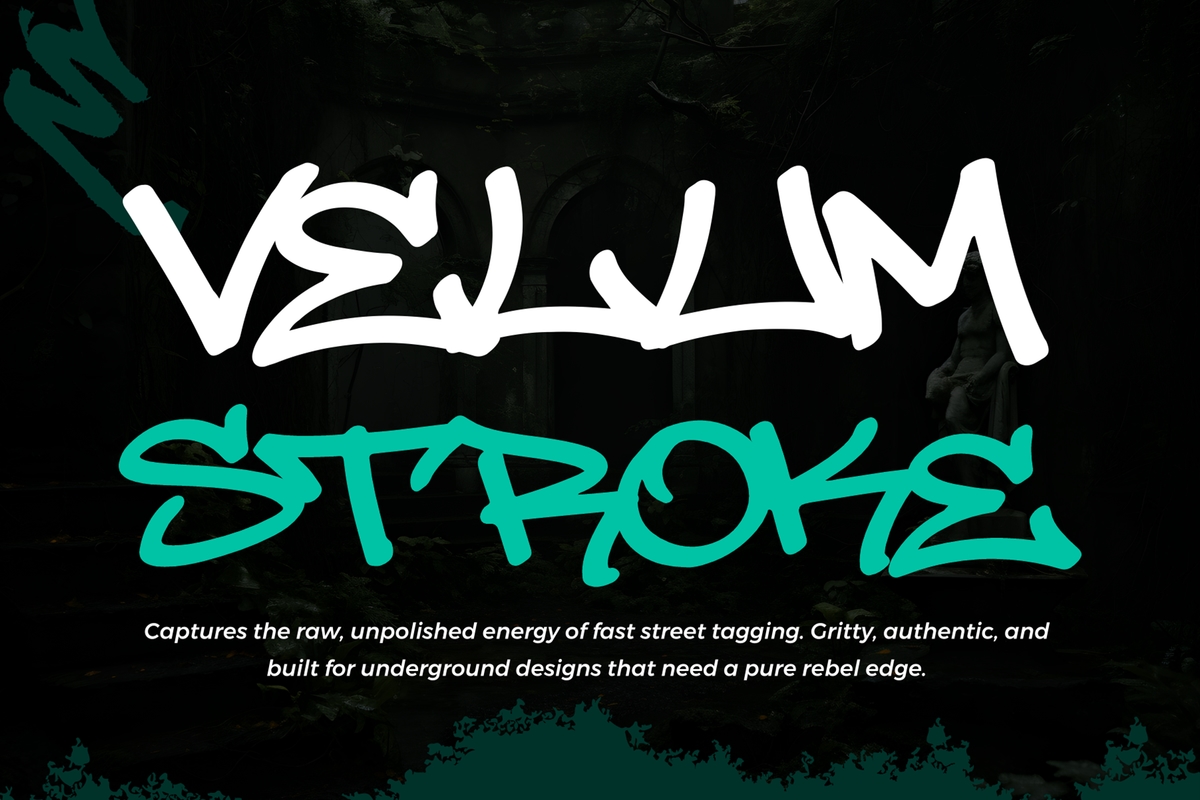
Velum Stroke
Velum Stroke is a raw handwritten graffiti tag typeface that captures the unfiltered energy of fast street writing. Inspired by real marker tags, underground culture, and spontaneous urban expression, this typeface delivers an authentic street feel without artificial polish. Every stroke feels immediate and alive — just like graffiti written in motion. Designed for designers who want honesty in their typography, Velum Stroke embraces imperfection as its strongest character. The letterforms ar